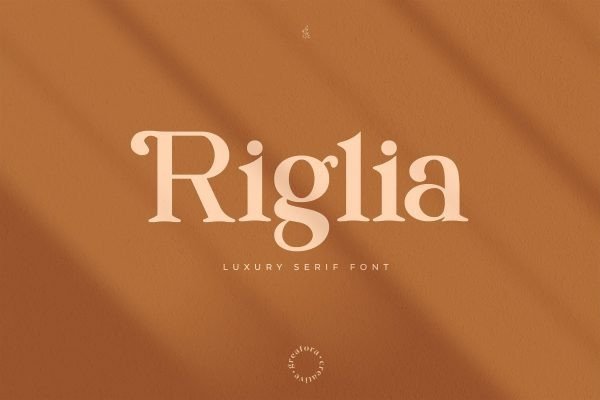
Riglia Font
Riglia Serif Font is a font created by Greafora Creative with a bold serif font style, has a classic and vintage impression, suitable for designing elegant logos, quotes, magazine covers, wedding cards, invitations, and brands. The additional indentation of the alternate letters will embellish the Heading text of your worksheets and projects.